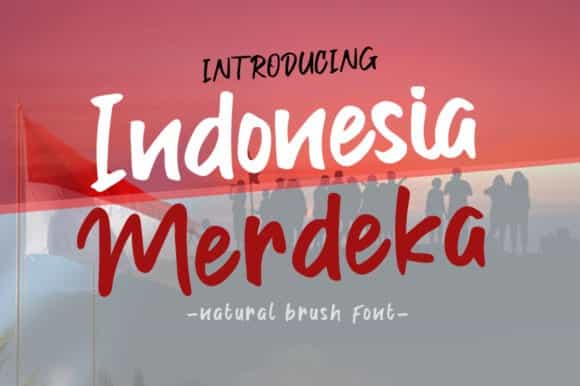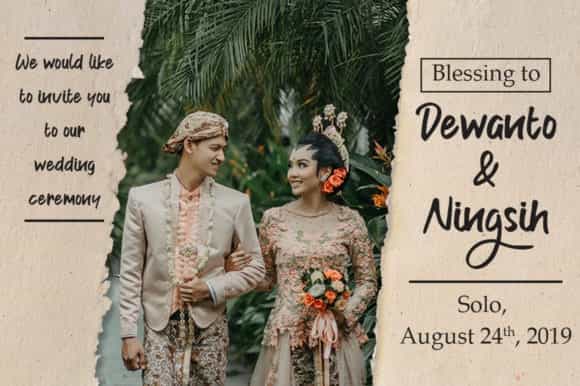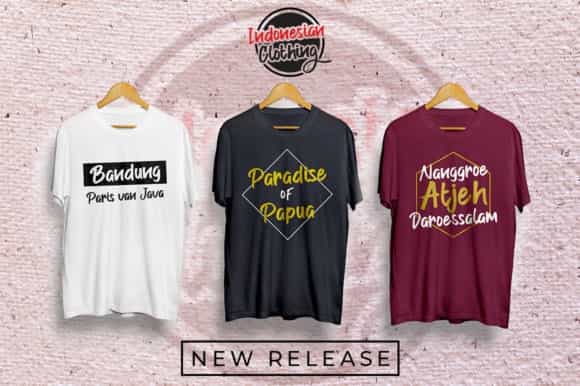
Discover Indonesia Merdeka Font, part of the Brush collection—a versatile and unique font perfect for adding a personal touch to your projects. Download it for free and enjoy crafting designs with style, from invitations to social media posts. This font is available exclusively for personal use, giving you the freedom to create without limits. Unlock your creativity with Indonesia Merdeka Font today!
Indonesia Merdeka Font is another font type that is crafted by hand using the brush style with a friendly and light sensation. Let’s use it to make any design project stand out beyond the rest of the pack.